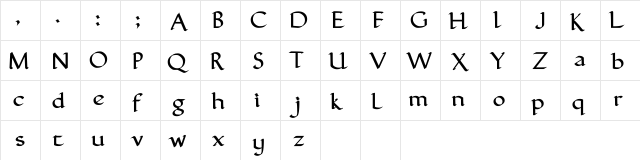
FinalRoman Medium Medium
Design Context for FinalRoman Medium Typeface
FinalRoman Medium offers clean, dependable letterforms without strong stylistic allegiance, making it a practical choice for designers who need flexibility.
Pro Tip: Pair FinalRoman Medium with a font of contrasting weight or personality to build a more expressive typographic hierarchy.